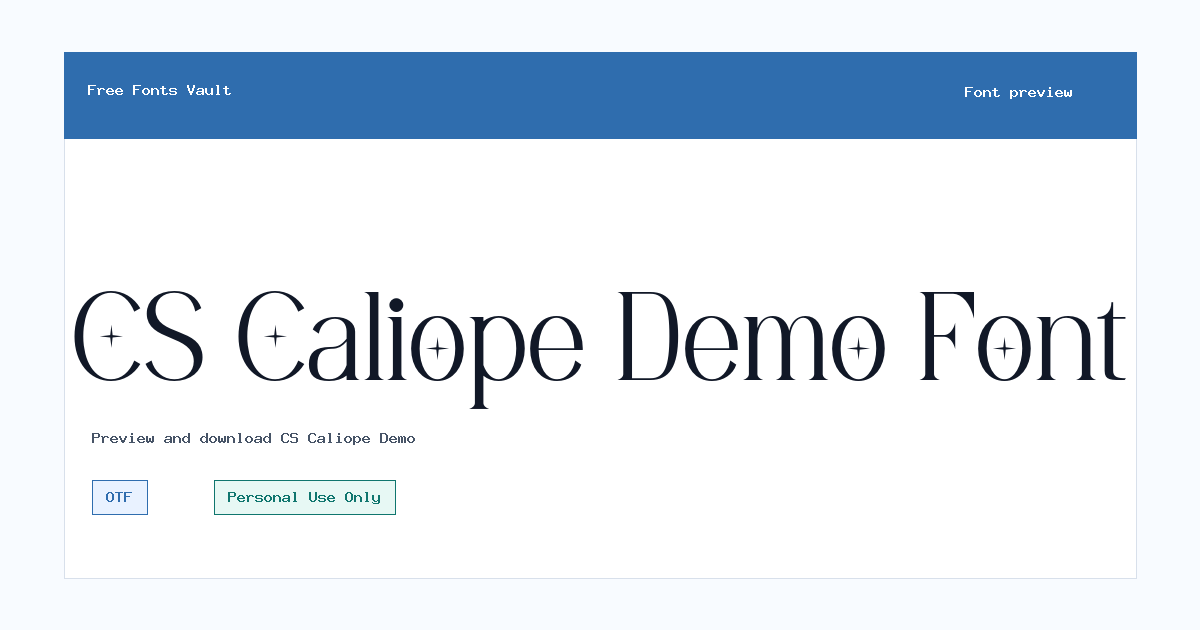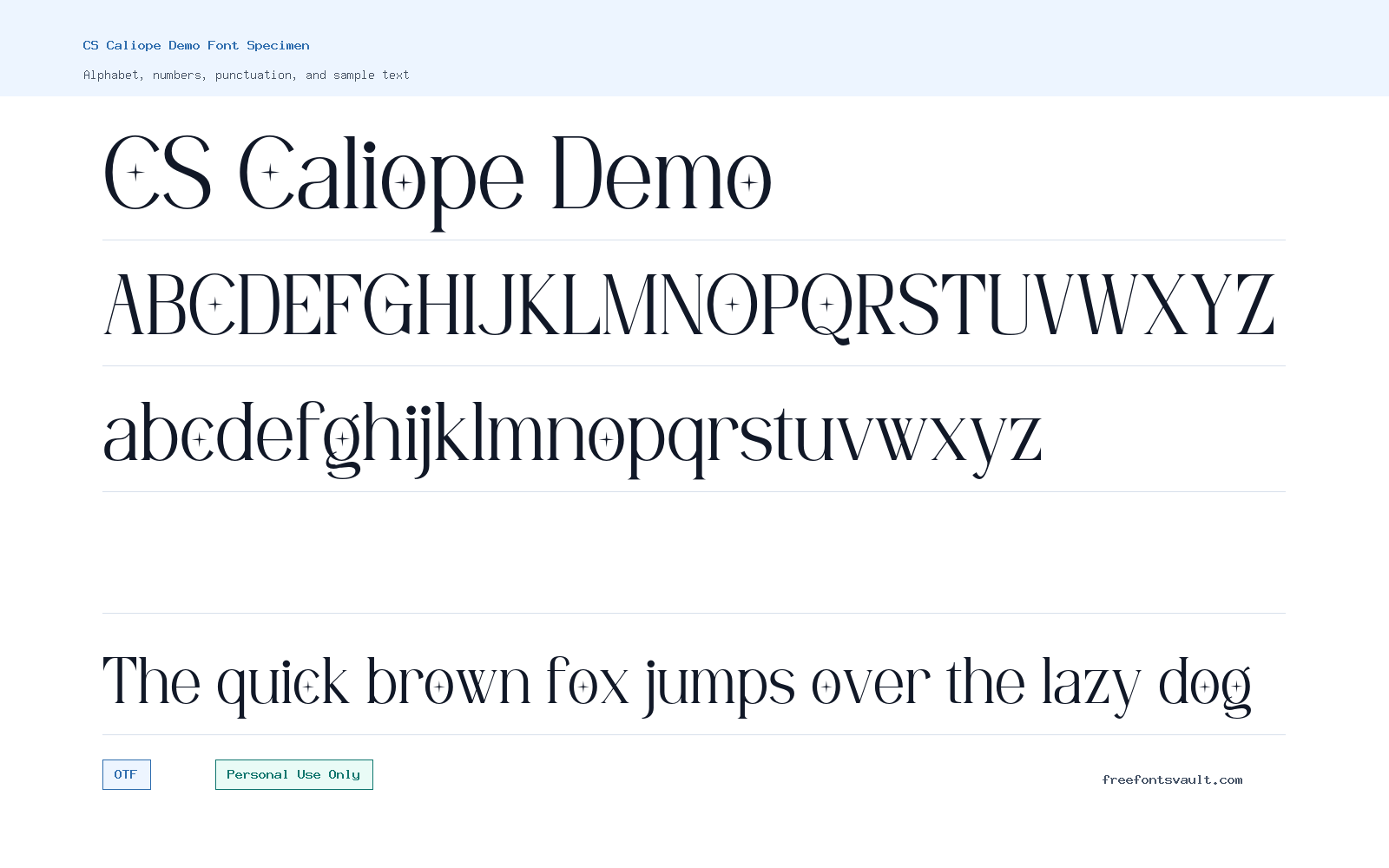
CS Caliope Demo
- Designer © 2025 by Craft Supply Co
CS Caliope Demo is a serif font from Craft Supply Co with a personal-use license. It is a good candidate to test when you need a more refined text style for headings, display layouts, and early design mockups.
CS Caliope Demo is listed as a serif font, and the downloadable file is an OTF regular style. Because only the demo regular variant is present, it is best treated as a preview or trial version rather than a full working family. That makes it useful for checking the font’s voice in sample layouts, brand direction boards, poster drafts, social graphics, and logo sketches where a single weight is enough to judge the look. Use the preview tool with your own words, especially names, titles, product labels, or short phrases, because serif display fonts can change character quickly depending on letter combinations.
For design work, start with short text. CS Caliope Demo is likely to be most useful in places where the type can breathe: large headings, elegant title cards, packaging concepts, editorial-style covers, invitations, moodboards, and presentation mockups. If you are testing it for logo work, check the spacing around letters such as C, S, A, T, L, and O, then adjust tracking or kerning in your design app if needed. For posters and web mockups, pair it with a quiet sans serif for body copy so the serif can carry the visual tone without making the whole layout feel busy. Since only a regular weight is listed, avoid layouts that require a full hierarchy of bold, italic, and multiple weights unless you plan to buy or license a fuller version from the rights holder.
- Best tested in headings, logo drafts, poster titles, editorial layouts, and brand mockups
- Single regular variant, so it is simple to preview but limited for full typography systems
- Logo concepts and wordmark experiments
- Poster titles, cover designs, and display headings
- Web mockups, landing-page hero text, and brand presentation slides
- Invitation designs, packaging drafts, and social media graphics
- Personal projects where a refined serif title style is needed
What kind of font is CS Caliope Demo?
It is listed as a serif font. The available style is a regular OTF demo file, which makes it suitable for previewing the design in headings and short display text.
What should I pair with CS Caliope Demo?
Pair it with a clean sans serif for body text, captions, navigation, or supporting copy. This keeps the serif style focused on titles, names, and short phrases.
Is CS Caliope Demo good for paragraphs?
Use caution with long paragraphs. Since only a demo regular style is listed, it is safer to use it for headings and display text, then choose a dedicated reading font for longer copy.